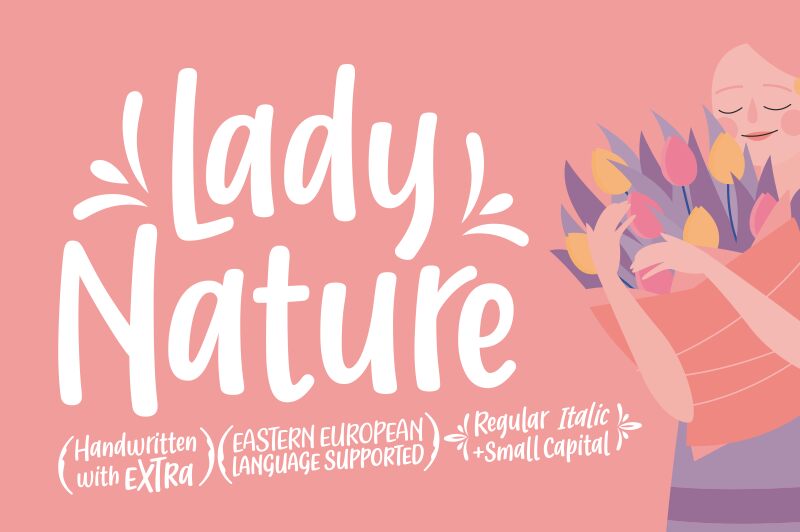
Lady Nature
Lady Nature is a delightful handwritten font designed by Situjuh Nazara. With its semi-light weight, this font exudes elegance and grace, making it perfect for various creative projects. The soft curves and organic strokes of Lady Nature add a whimsical touch to invitations, greeting cards, and wedding stationery. Its legibility also makes it suitable for branding materials like logos, packaging designs, and social media graphics. Whether you're working on a romantic project or aiming for a natural aesthetic, Lady Nature will bring a touch of sophistication to your designs.